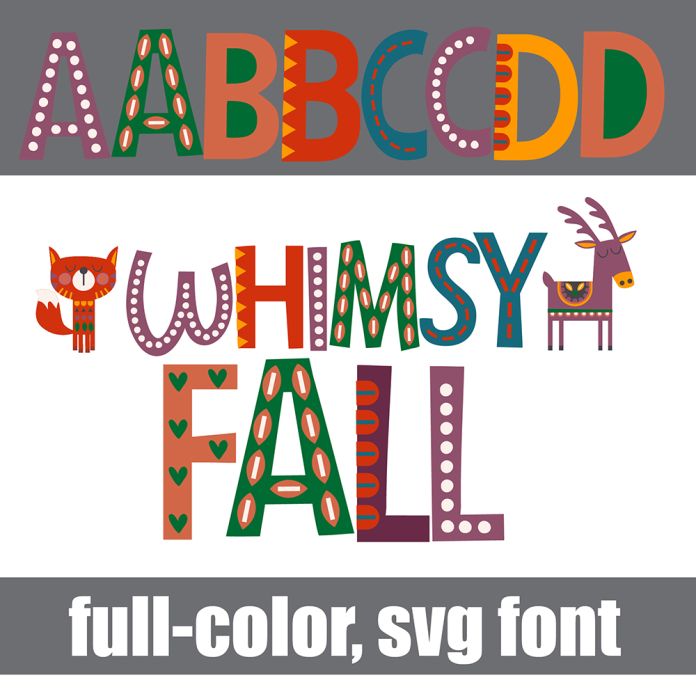
This full-color font features a creative sans serif font in an autumn color palette. Access cute, whimsical fall animals when you type bracket glyphs. There is an alt version you can access through your system's character map that contains additional colors of all the letters. This font works best for titles, displays, posters and more. Please note color fonts will show as black in non compatible programs. This font type is compatible with Silhouette Studio.